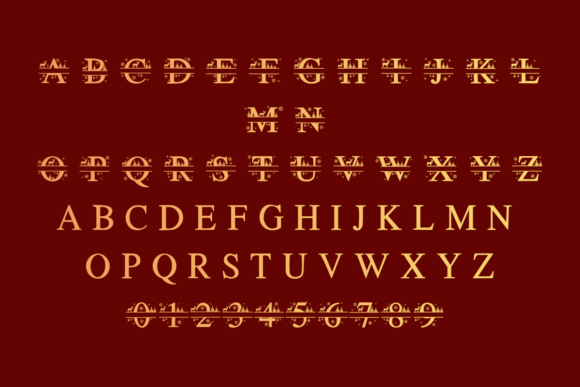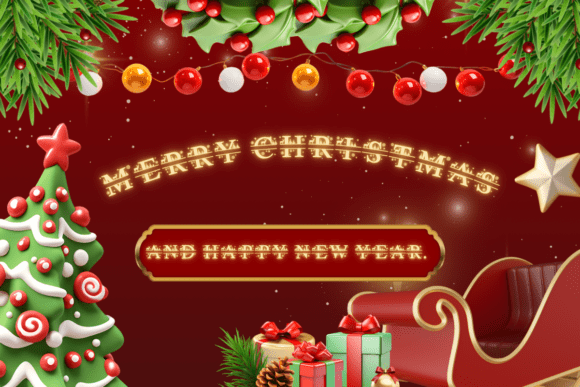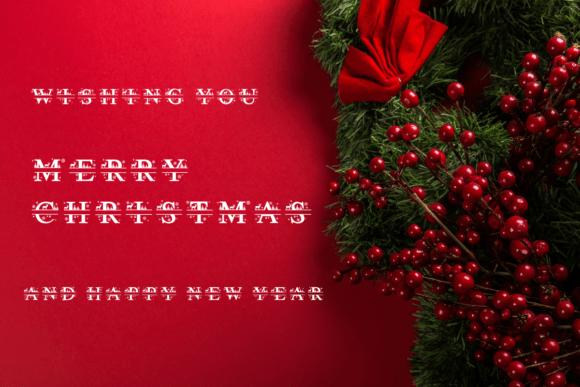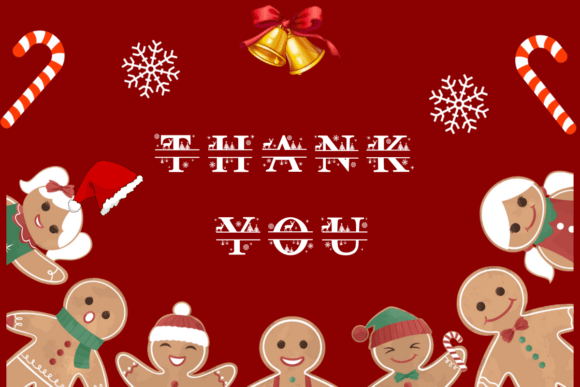
Introduction to Noel Dream Font
Noel Dream is a luxurious decorative font infused with the magic of Christmas.
Each uppercase letter is uniquely designed with festive cutouts—featuring ornaments, snowflakes, trees, reindeer, and more—making it the perfect choice for holiday-themed branding, seasonal cards, event posters, product packaging, and personalized crafts With its bold presence and rich, golden charm, Noel Dream captures the wonder of winter nights and joyful celebrations.
Key Features of Noel Dream Font